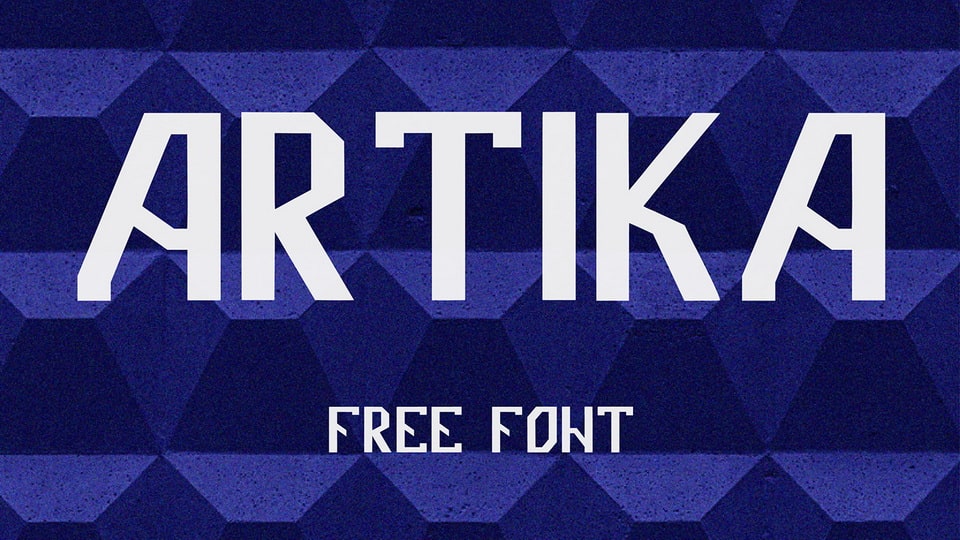
Download Artika font, a striking display typeface shaped by the raw aesthetics of brutalist design with its sharp angles, rigid geometry, and unapologetically bold structure.